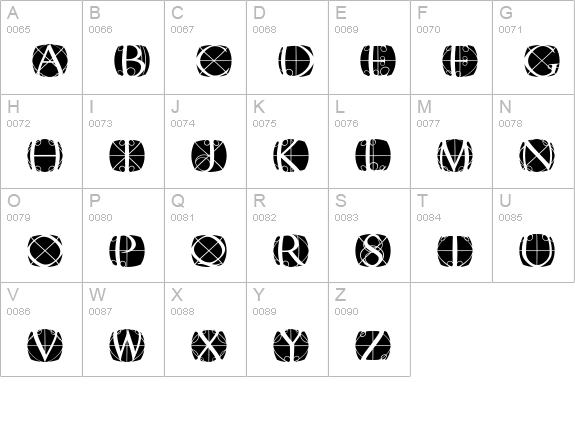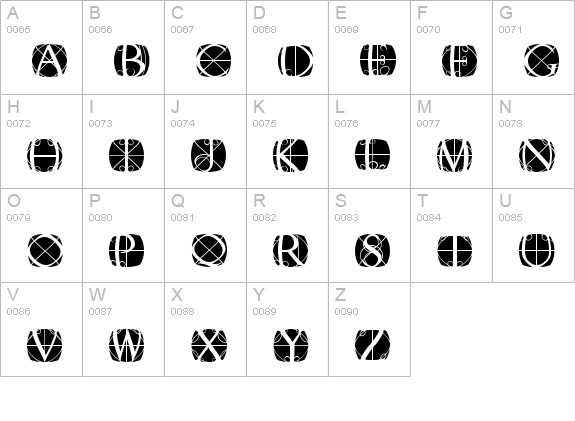
RodgauerOneRound Medium is a balanced, medium-weight variant in the RodgauerOneRound typeface family \xE2\x80\x94 well suited to sub-headlines, navigation, and balanced editorial work.
RodgauerOneRound Medium font is a versatile and modern typeface that effortlessly combines elegance with readability. With its clean lines and rounded edges, this font is perfect for a wide range of design projects, from logos to branding materials to website headers. What makes RodgauerOneRound Medium font even more appealing is the fact that it is available for free download at FontsMarket.com. This means that you can easily access and use this high-quality font without any cost, making it an excellent choice for designers and creatives looking to enhance their projects without breaking the bank. Whether you're working on a professional presentation or a personal creative endeavor, RodgauerOneRound Medium font is sure to elevate your design with its unique style and visual impact. Download it for free today and add a touch of sophistication to your next project.